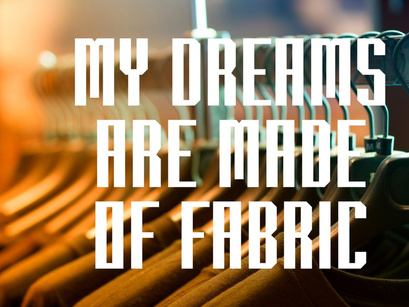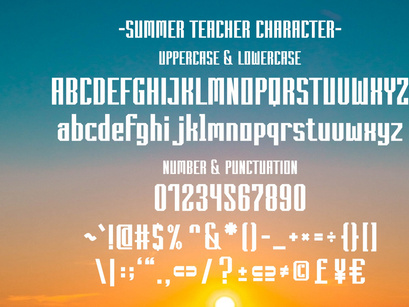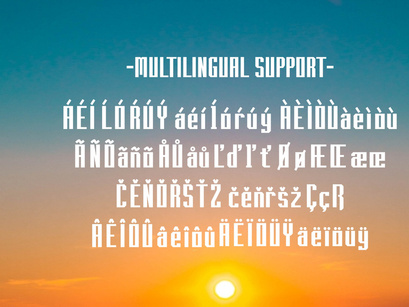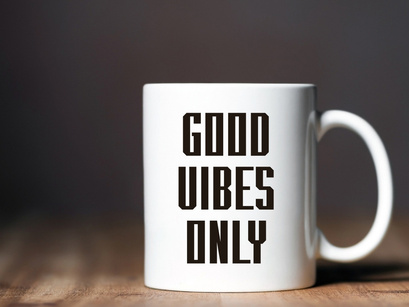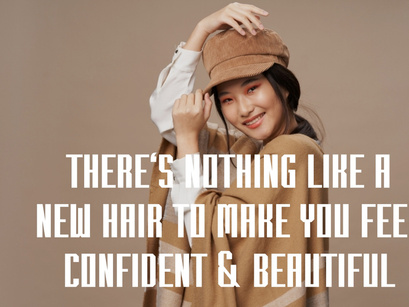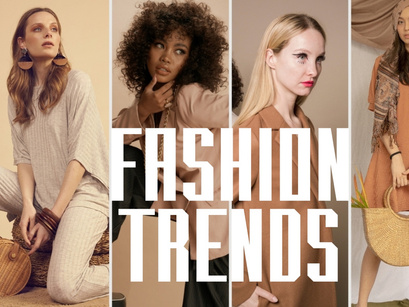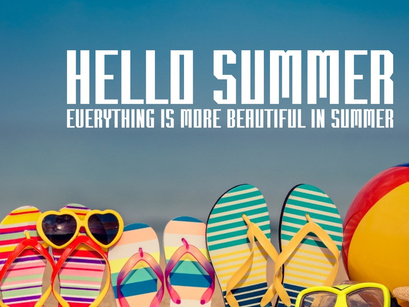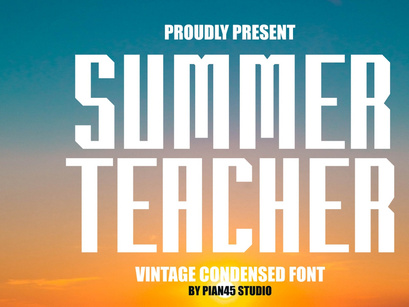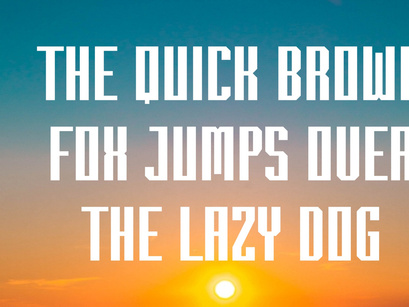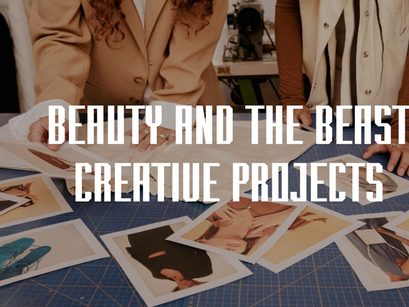
Summer Teacher - Vintage Condensed Font
Summer Teacher
SUMMER TEACHER is the ultimate Vintage Condensed Font for powerful high-impact display and athletic branding. This ultra condensed typeface is essential for designers creating retro apparel, sport merchandise, and bold poster headlines, guaranteeing strong visual presence in tight spaces.